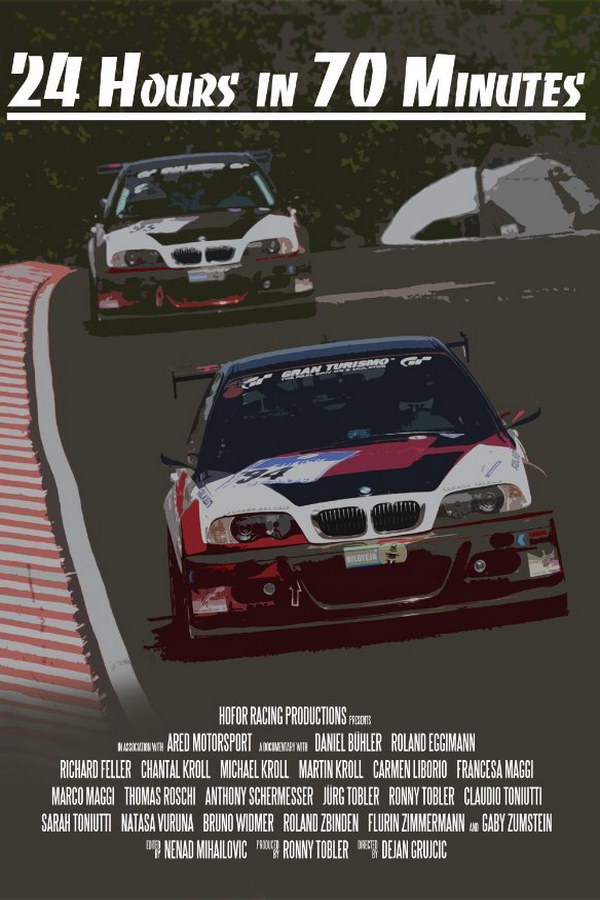
24 Hours in 70 Minutes Font
Documentary24 Hours in 70 Minutes is a sports documentary directed by Dejan Grujcic in 2012. The film captures the intensity and essence of various sports within a condensed timeframe, offering an immersive experience in just 70 minutes.
The movie title features Banco, a typeface initially created by Roger Excoffon, a renowned French graphic and poster designer, in 1952. Further information on this typeface is available here.